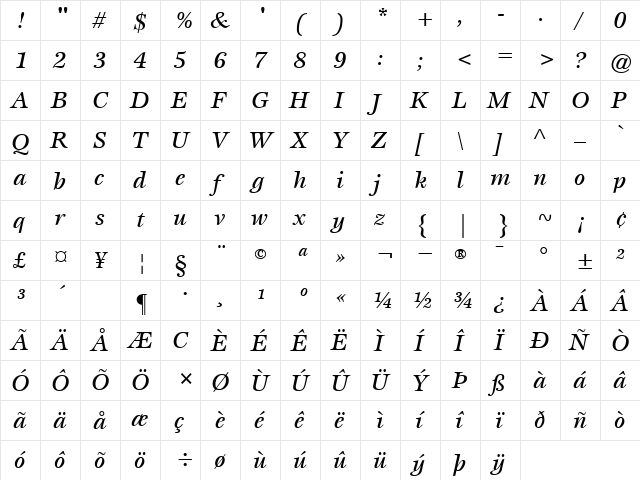
Esprit MediumItalic
Design Context for Esprit Typeface
Esprit is a composed and adaptable typeface that performs quietly and consistently across a wide range of design contexts. The dynamic lean of this cut emphasises speed and emphasis in any layout.
Pro Tip: Try Esprit for annotation and caption copy alongside an upright companion — the contrast in angle creates a dynamic but ordered typographic system.